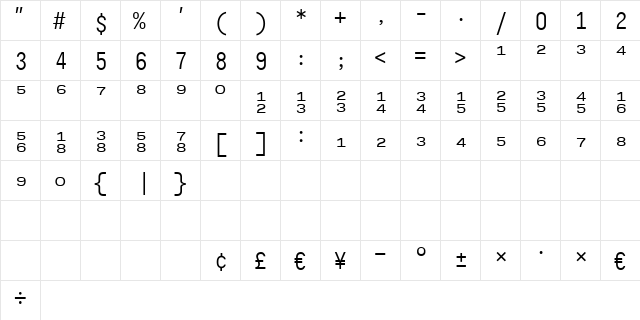
Numbers Claimcheck Regular
Design Context for Numbers Claimcheck Typeface
Numbers Claimcheck is a composed and adaptable typeface that performs quietly and consistently across a wide range of design contexts.